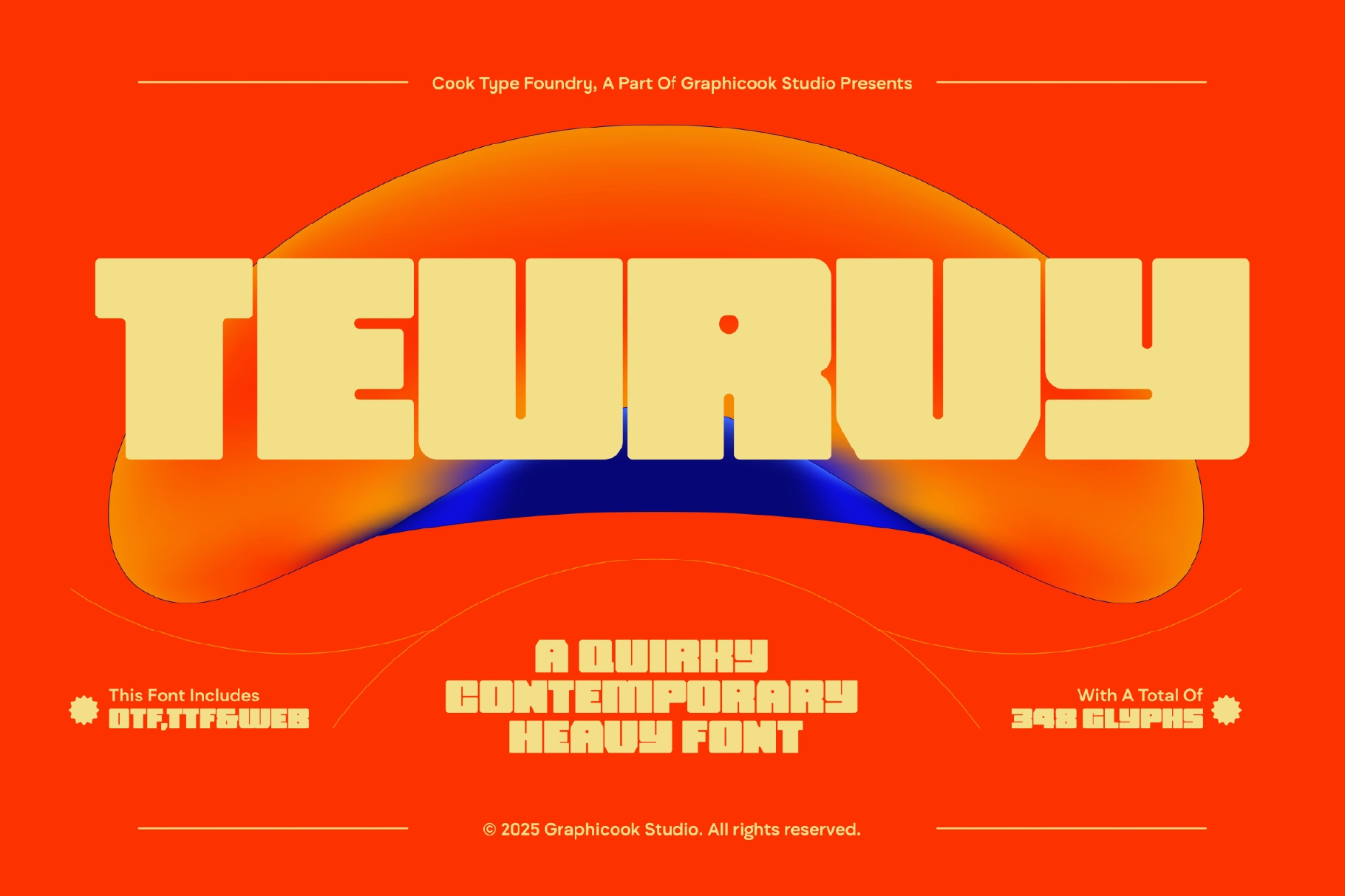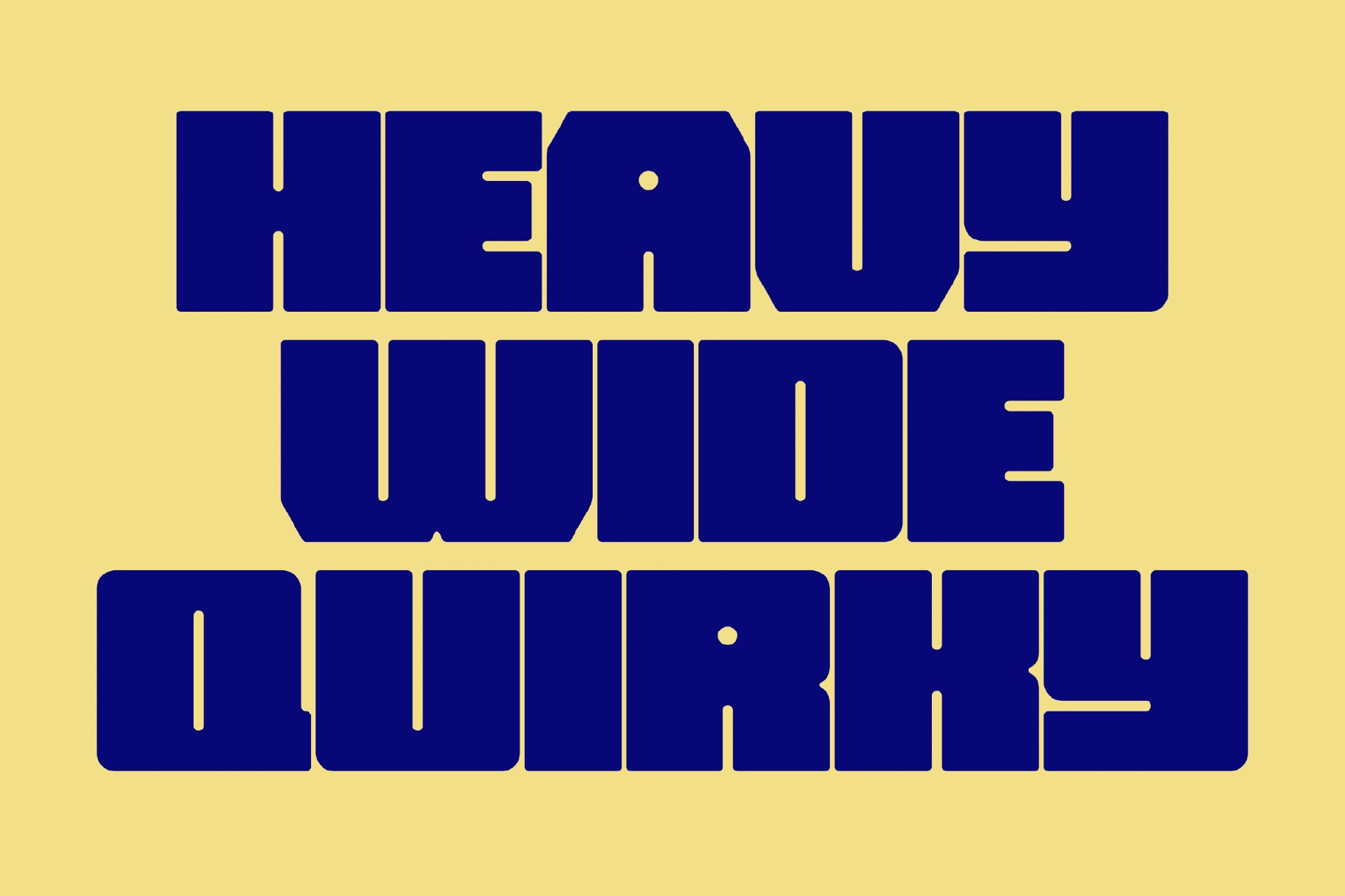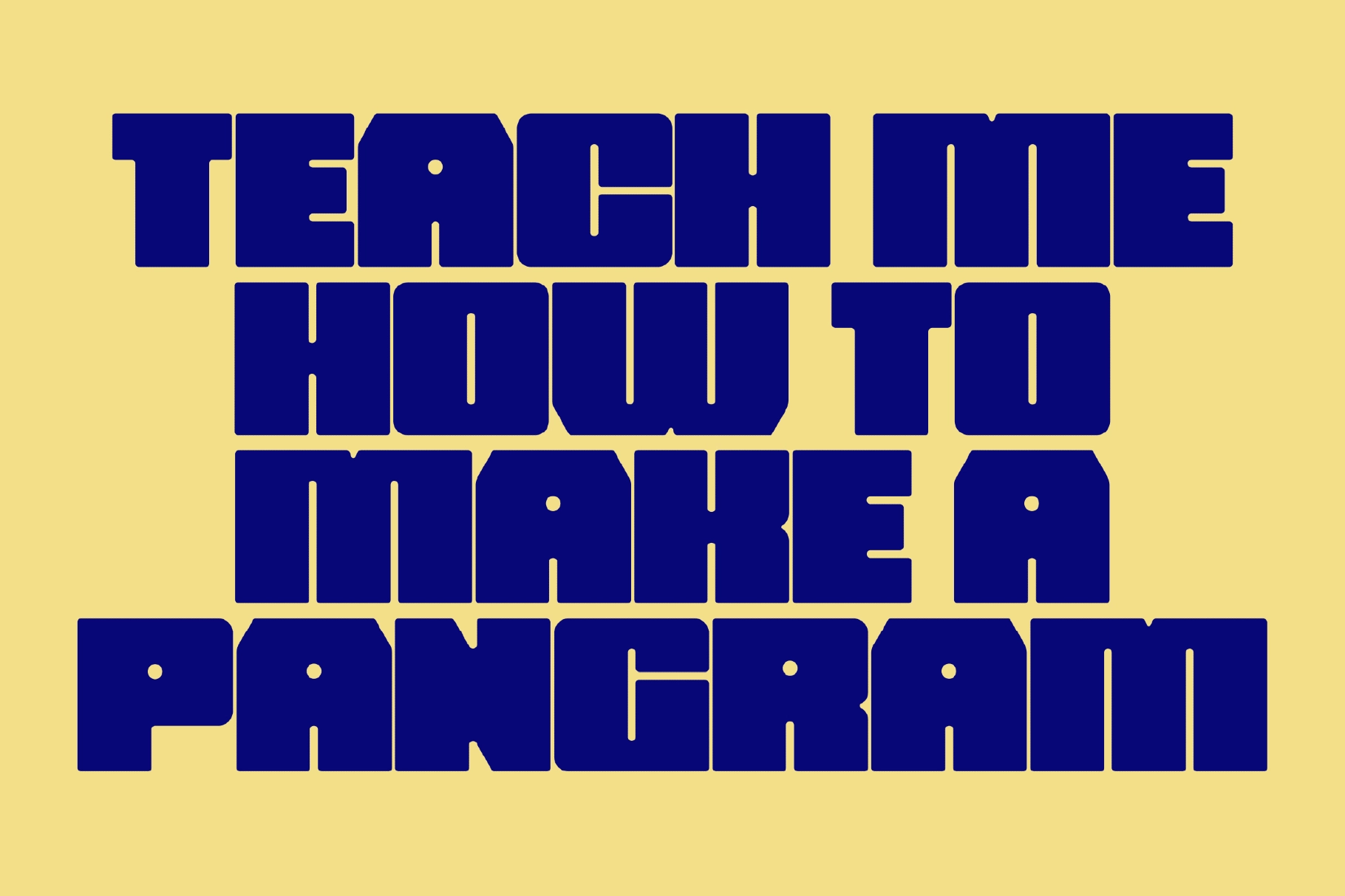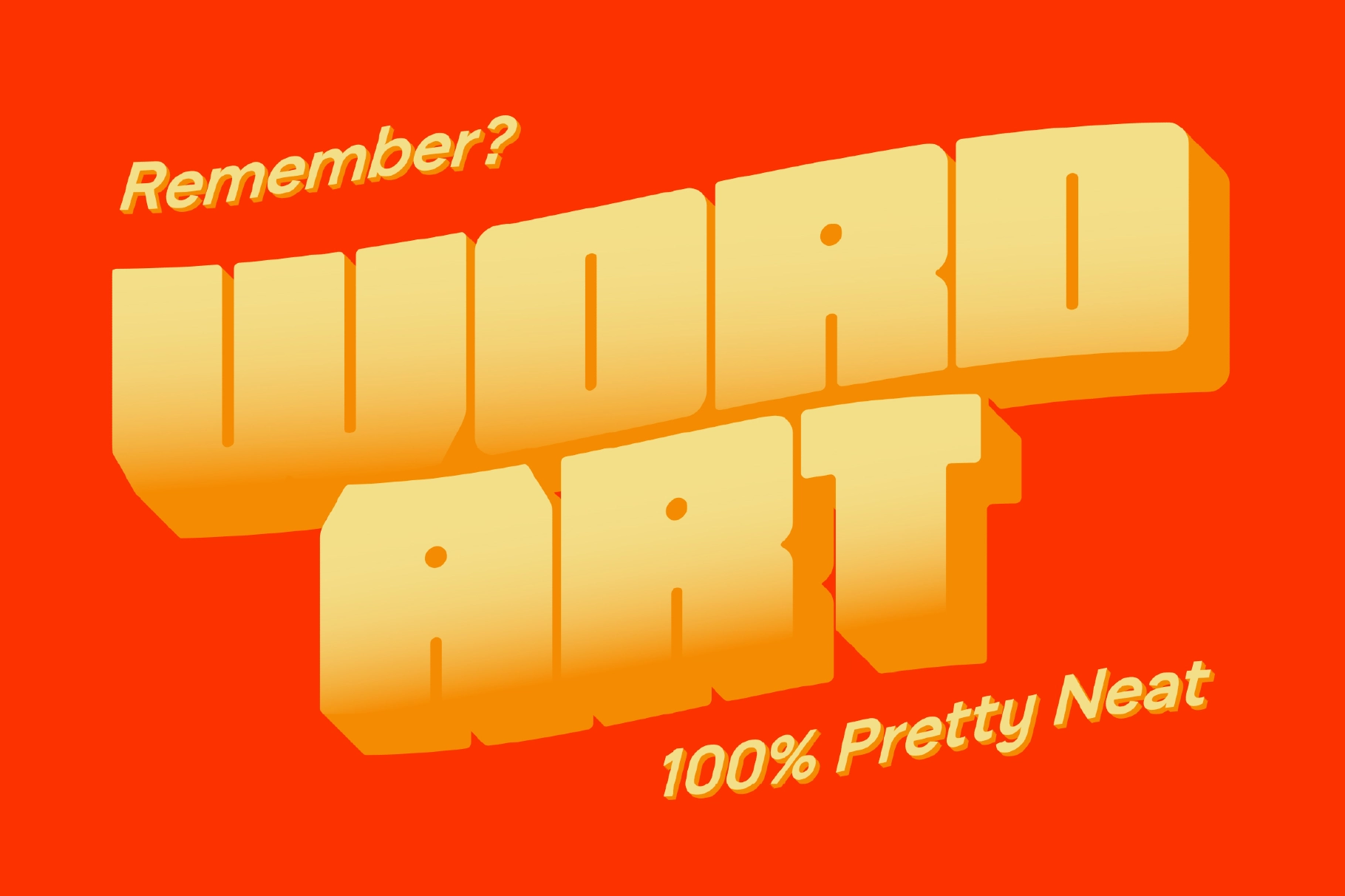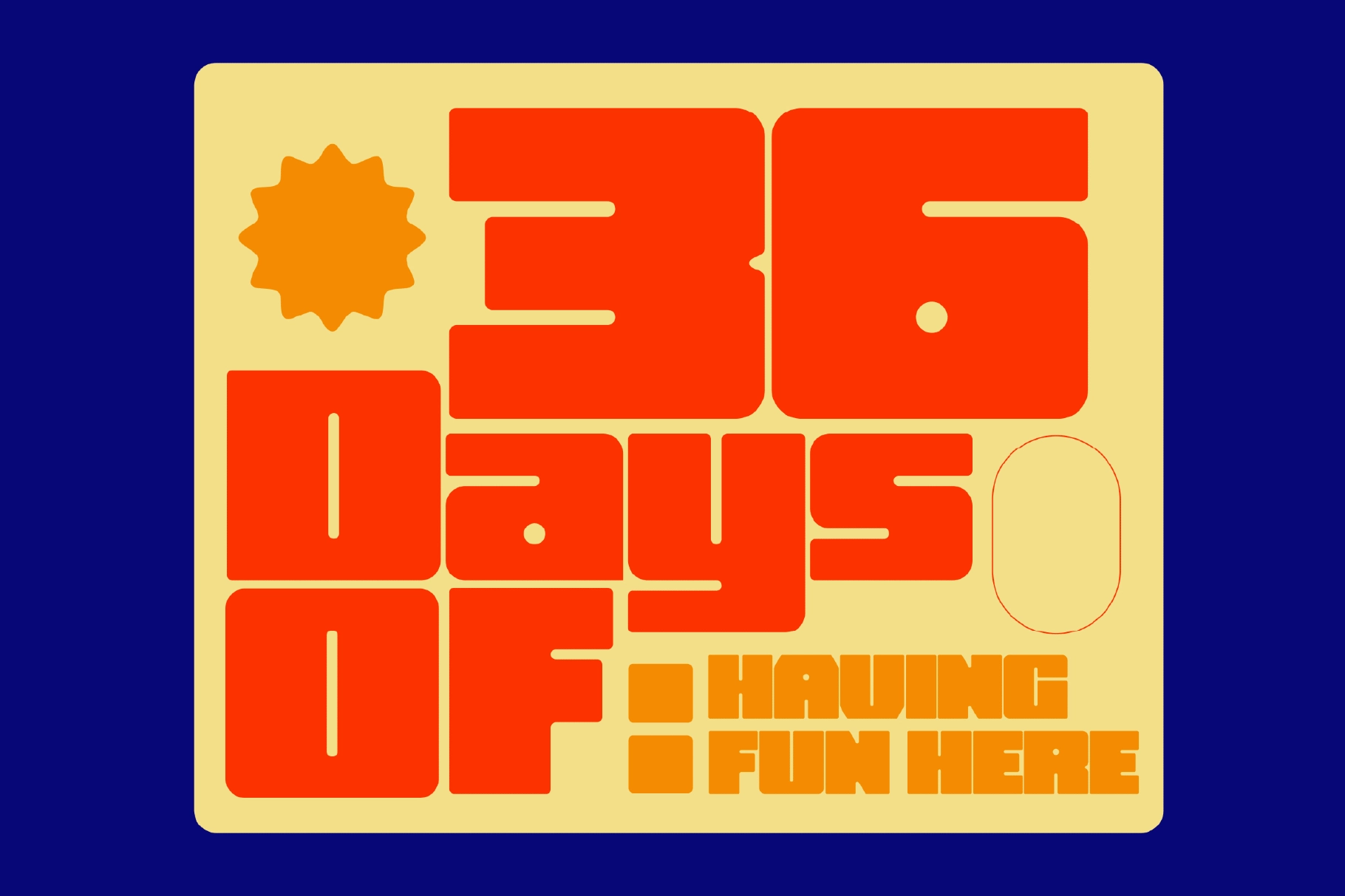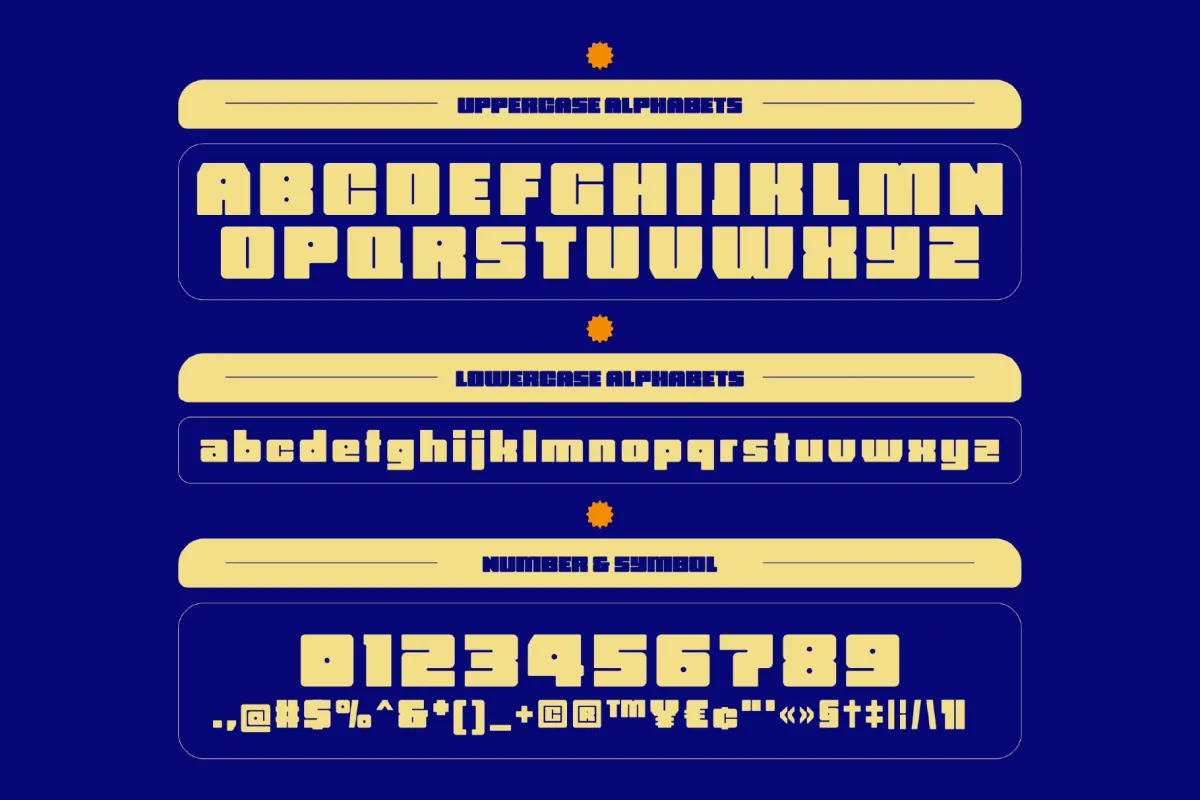
Teurvy Font
Teurvy
Teurvy is a wide font with an ultra-thick and sturdy design, creating a strong and stable impression. It’s perfect for headlines, logos, and designs that aim to be fun, bold, and unconventional.